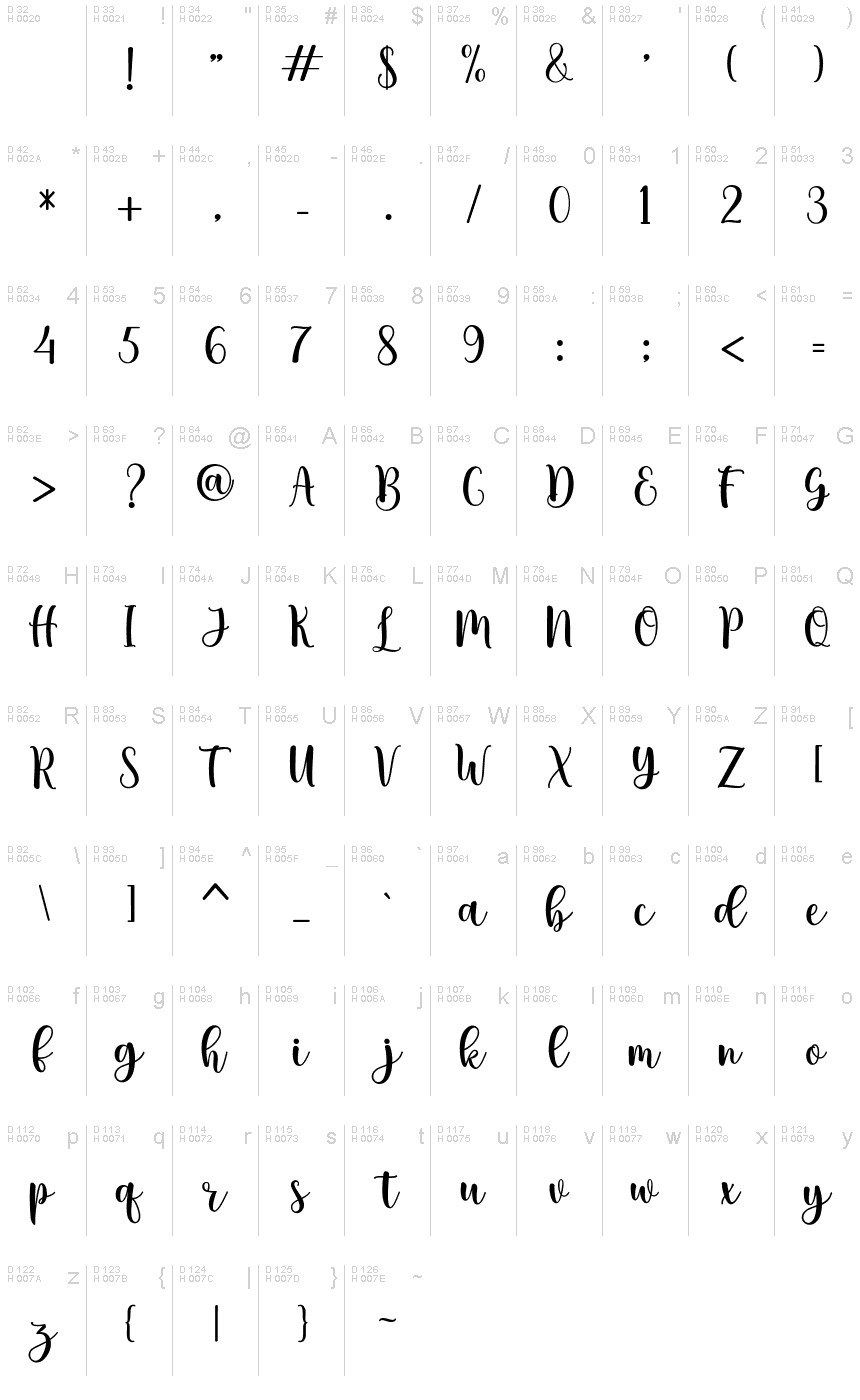
Christy
Christy, an exquisite calligraphy font by Amarlettering - Takiy, is a perfect choice for projects that require elegance and sophistication. With its semi-light weight, this font adds a touch of delicacy and grace to any design. Whether it's wedding invitations, luxury branding, or romantic editorial pieces, Christy's flowing strokes and intricate details will captivate your audience. Embrace the beauty of calligraphy with Christy and elevate your designs to new heights of refinement.